Unlock the power of LaTeX for beautiful mathematical typesetting! This guide simplifies choosing and using math fonts in LaTeX, helping you create professional, readable equations effortlessly. We’ll walk you through essential fonts, customization tips, and how to make your formulas shine, even if you’re new to LaTeX.
The Beauty of Math Fonts in LaTeX
When you’re working with mathematical formulas, the way they look matters a lot. Clear, well-chosen fonts make complex equations easy to understand. LaTeX is famous for its stunning mathematical typesetting. But did you know you have a lot of choices when it comes to the fonts used for math? It’s not just one-size-fits-all!
Choosing the right math font can elevate your documents from good to great. It ensures consistency, improves readability, and adds a professional touch to your work. Whether you’re writing a thesis, a research paper, or a simple homework assignment, the font you use for math symbols and variables plays a crucial role.
Don’t worry if you’re just starting with LaTeX. This guide will break down what math fonts are, why they’re important, and how to use them effectively. We’ll keep things simple and practical, so you can start making your math look amazing right away. Let’s dive into the world of LaTeX math fonts and discover how easy it can be!
Why Math Fonts Matter in LaTeX
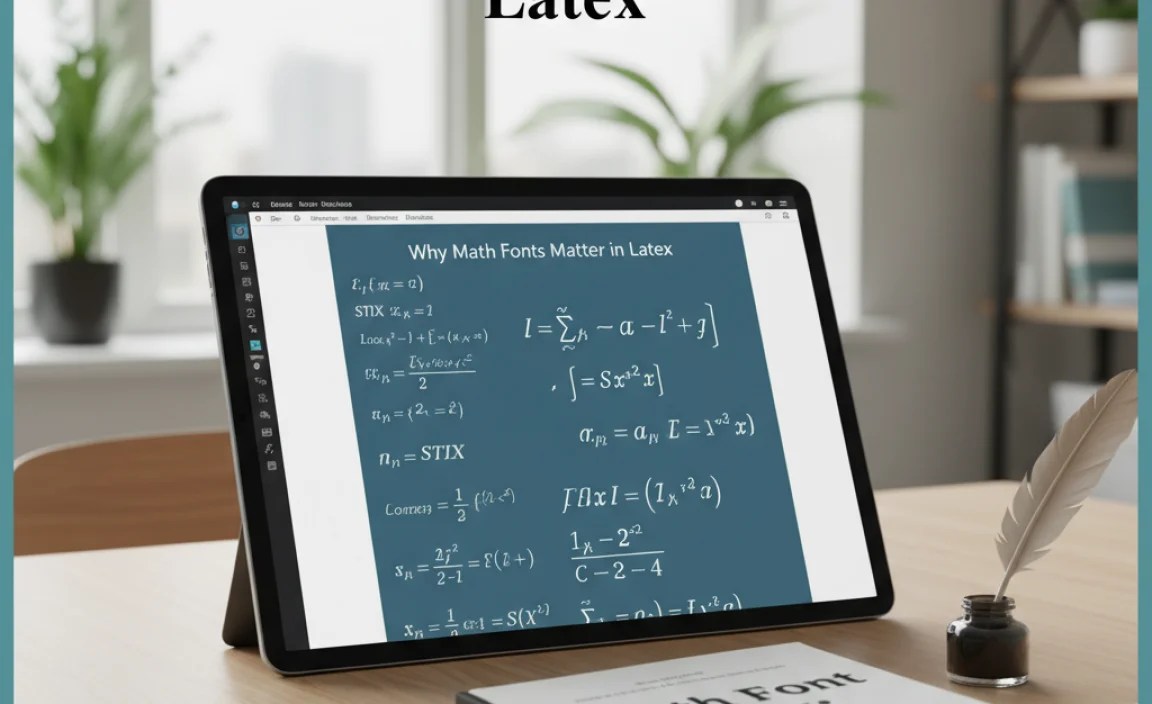
In the realm of academic and scientific writing, precision and clarity are paramount. Mathematical expressions are the language of many disciplines, and their visual representation directly impacts comprehension. LaTeX has long been the gold standard for typesetting these complex expressions, and a significant part of its success lies in its sophisticated handling of mathematical fonts.
Unlike regular text, mathematical symbols, variables, operators, and numbers have specific conventions and often require different styles (e.g., upright for numbers, italic for variables). Math fonts are designed to accommodate these nuances, ensuring that every element of an equation is differentiated correctly. Using default fonts might be functional, but understanding and selecting specific math fonts allows for:
- Enhanced Readability: Certain fonts are optimized for clarity at various sizes and complexities, reducing eye strain and cognitive load for the reader.
- Professional Aesthetics: A consistent and well-chosen font scheme lends a polished, professional look to your documents, reflecting careful attention to detail.
- Symbol Differentiation: Different math fonts offer distinct appearances for symbols that might otherwise look similar, preventing confusion (e.g., distinguishing between a lowercase ‘x’ and the multiplication symbol ‘×’).
- Typographical Consistency: When paired with the document’s main text font, math fonts can create a harmonious visual flow, maintaining a coherent design throughout.
Simply put, the right math font is not just about looking good; it’s about communicating effectively and professionally. LaTeX provides the tools to achieve this, and this guide will help you navigate them.
Understanding LaTeX Math Modes
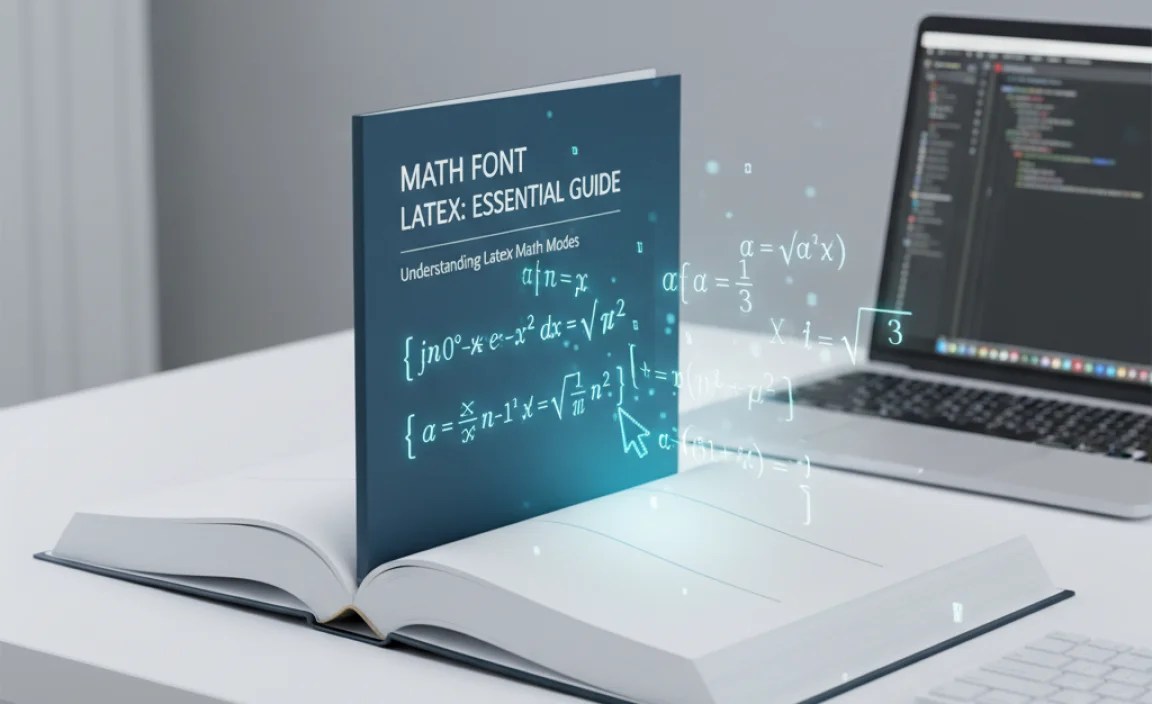
Before we talk about specific fonts, it’s essential to understand how LaTeX handles math. LaTeX has different “modes” for typesetting mathematics. This helps it know when to apply math-specific rules and character spacing.
There are two main math modes:
- Inline Math Mode: Used for mathematical expressions that appear within a line of text. You typically enter this mode by surrounding your math with dollar signs (`$`). For example, `$E=mc^2$` will typeset the equation “E=mc²” right within the paragraph.
- Display Math Mode: Used for mathematical expressions that should be set apart on their own line, usually centered and in a larger size. This improves readability for complex equations. You can enter display math mode using:
- `[ … ]`: A simple way to get unnumbered displayed equations.
- `begin{equation} … end{equation}`: For numbered display equations.
- `begin{equation} … end{equation}`: For unnumbered display equations using the `amsmath` package.
Understanding these modes is the first step to correctly applying any math font.
Essential LaTeX Math Fonts: A Beginner’s Guide
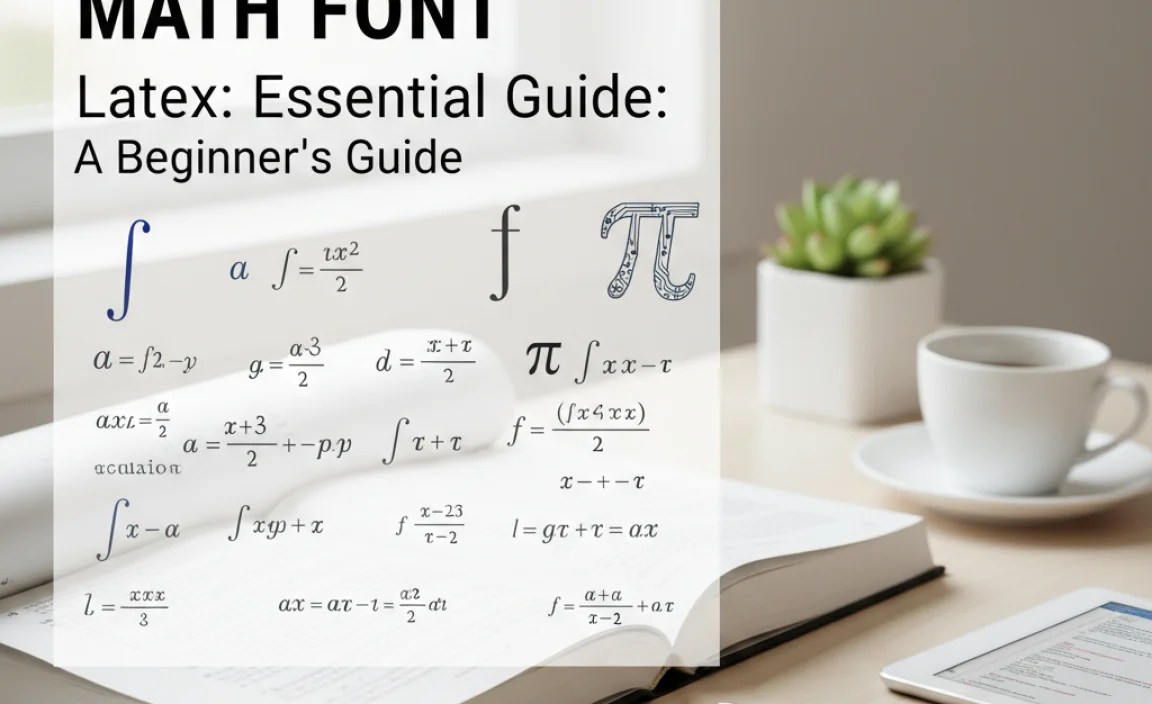
When it comes to mathematical typesetting in LaTeX, several font packages are commonly used. These packages not only provide a consistent set of mathematical symbols but also often offer different styles to match your document’s overall design. Let’s explore some of the most important and frequently used ones.
1. Default LaTeX Math Font (Computer Modern)
LaTeX’s default font for mathematics is a part of the Computer Modern family, designed by Donald Knuth. This is what you get when you start a new LaTeX document without specifying any other math font packages. It’s a seriffed font that is highly functional and visually pleasing for many scientific and academic contexts.
To illustrate the difference, consider this table:
| Feature | Text Font Purpose | Math Font Purpose |
|---|---|---|
| Character Set | Letters, numbers, punctuation, common symbols. | Mathematical symbols (+, -, =, ×, ÷, ∫, Σ, ∞), Greek letters, variables, operators. |
| Styling Principles | Designed for continuous reading of prose. | Designed for clarity of individual symbols, differentiation (e.g., italic variables vs. upright numbers/functions), and precise spacing in expressions. |
| Examples |